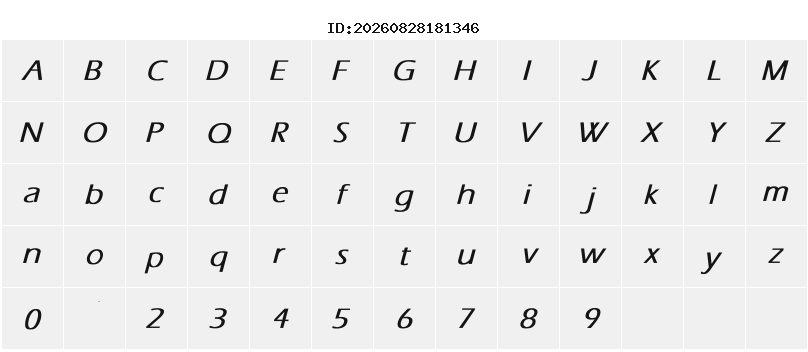
Tili Preview
• Font Name: Tili
• Full Font Name: Tili Bold Italic
• PostScript Name: Tili-BoldItalic
About Tili.ttf
Tili.ttf is a modern, elegant sans-serif font designed for ultimate readability and visual harmony. Perfect for branding, headlines, web design, and print materials.